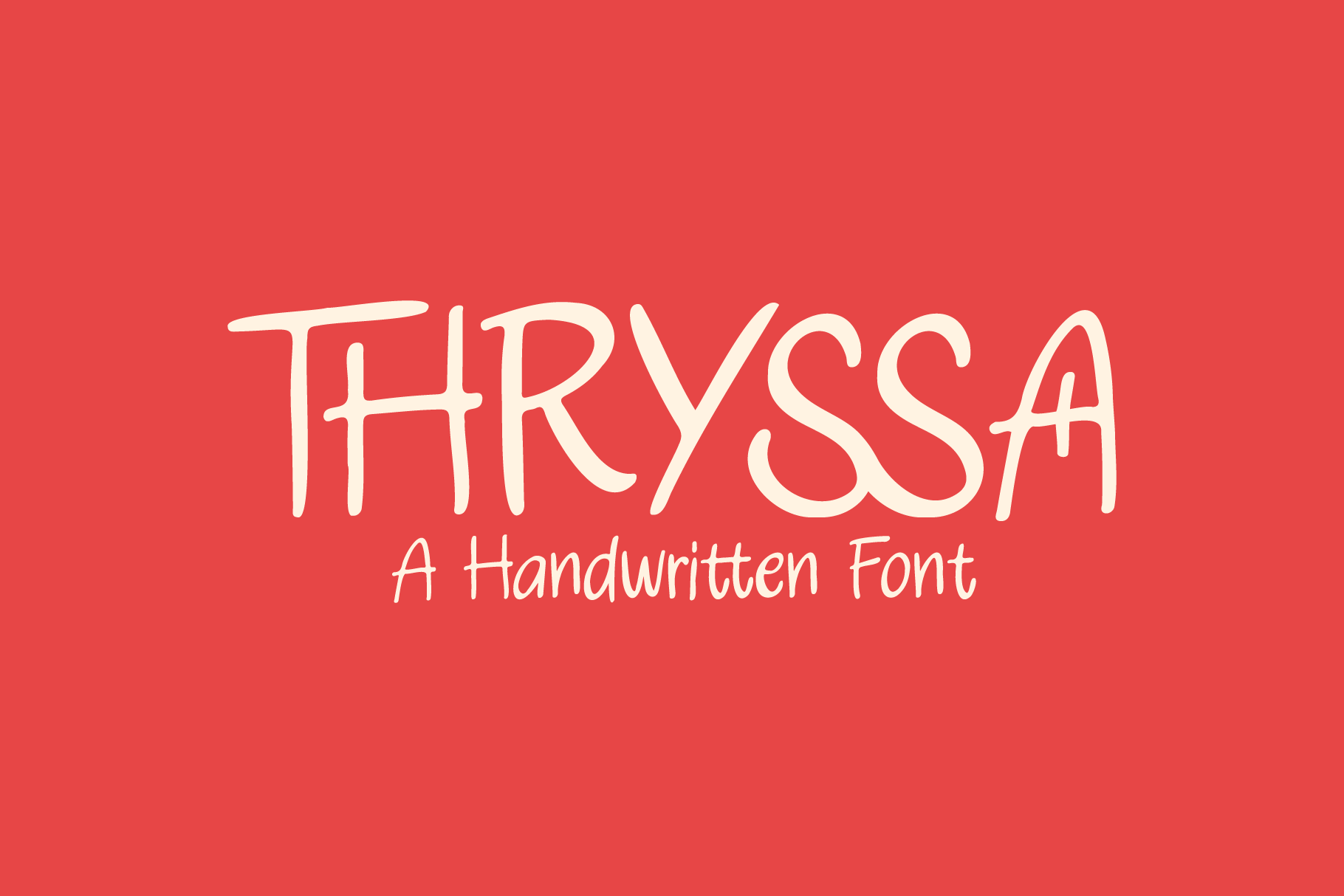
THRYSSA Handwritten Font
THRYSSA Handwritten Font by VSType
Get ready to make a bold statement with our newest font! With its strong lines and eye-catching design, this font is perfect for posters, banners, and other projects that require a powerful and impactful look.